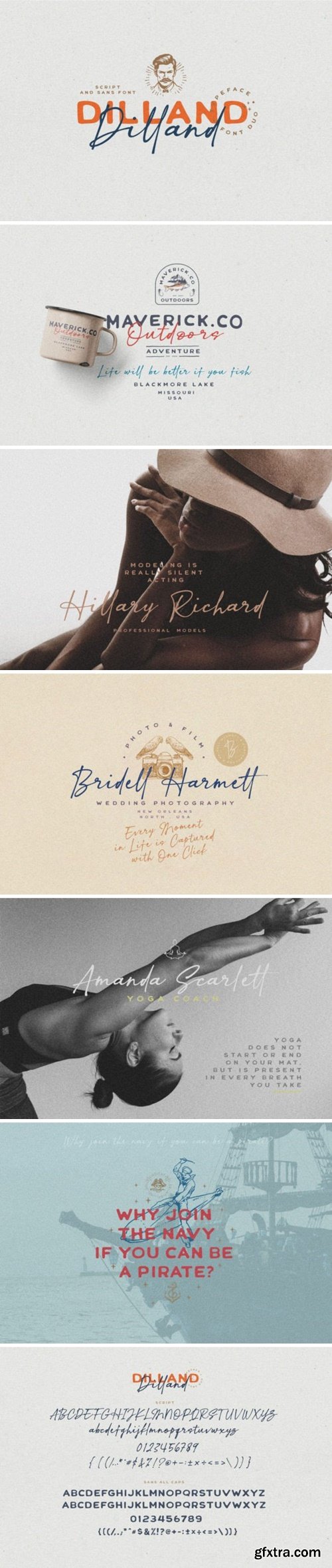
Dilland Font
Dilland typeface is font duo composed of script & sans serif with exquisite letters an organic font with natural vibes .This font is great to use on projects that need cursive handwriting and natural authentic feel perfect for adding a classy touch to your projects.